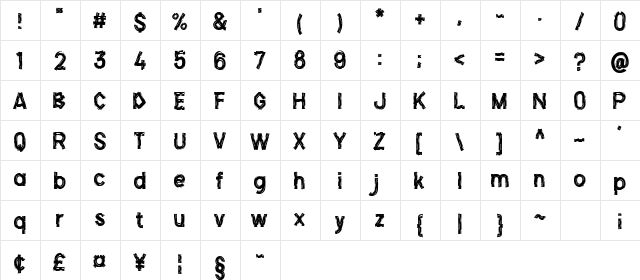
Alexaniri 2.0 Regular
| Designer | Anang Fibriyanto | Cornertype!" Studio Indonesia |
Design Context for Alexaniri 2.0 Typeface
Alexaniri 2.0 is a composed and adaptable typeface that performs quietly and consistently across a wide range of design contexts.